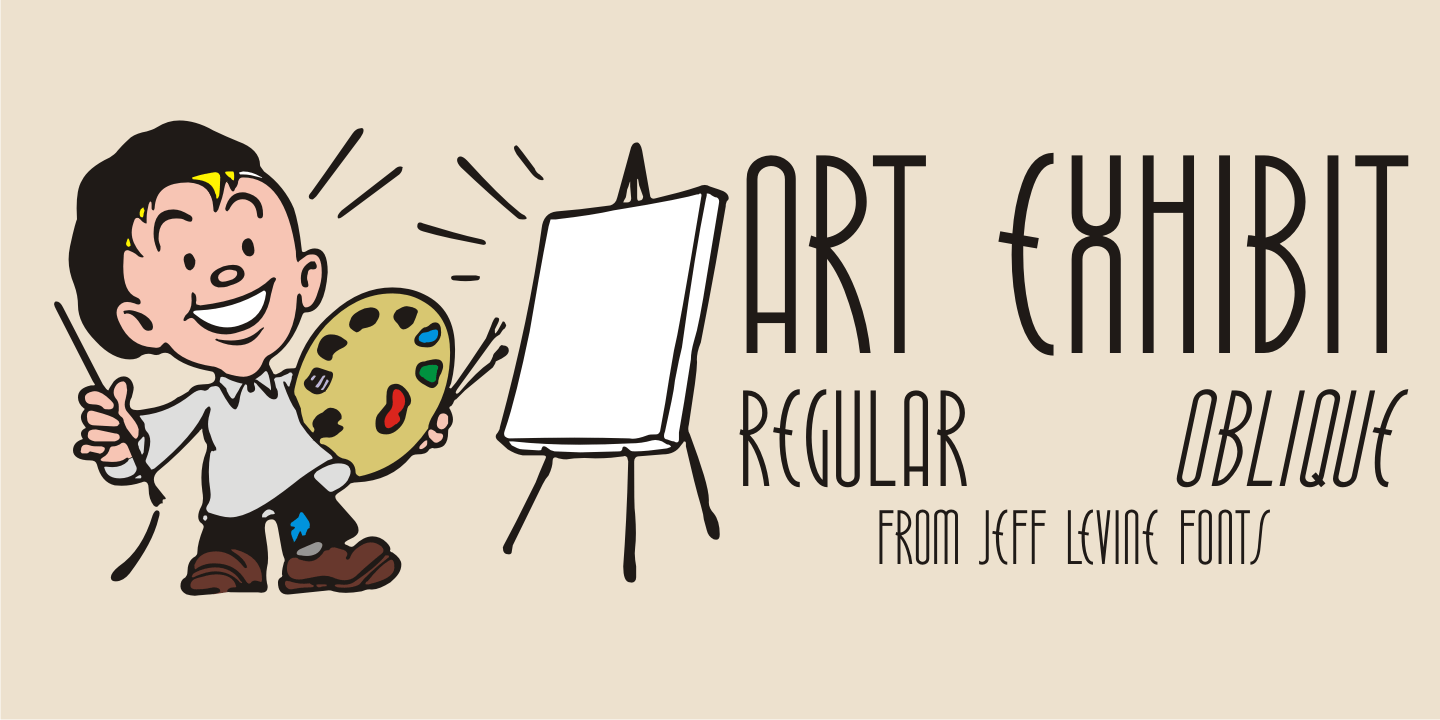
Art Exhibit
In the 1930s the WPA (Works Progress Administration) was involved with getting a number of Americans back to work during the Great Depression. One faction of the WPA's efforts was the Federal Art Project.
Thin, condensed hand lettering on a poster for an Art Exhibition at the New Bedford Free Public Library is the inspiration for Art Exhibit JNL.
Art Exhibit JNL Regular by Jeff Levine Fonts